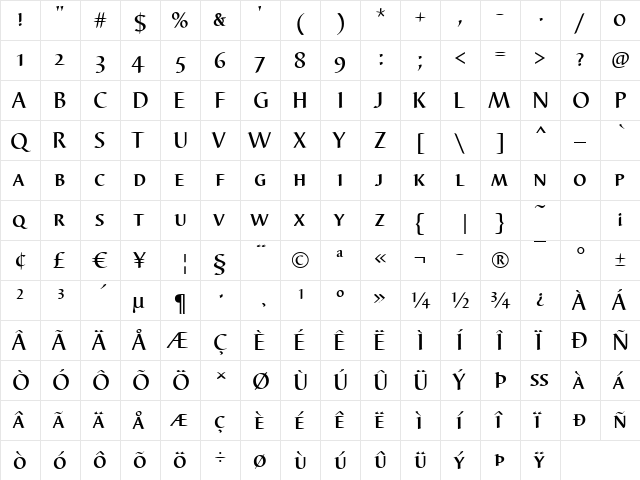
Barbedor-Caps Bold
Design Context for Barbedor-Caps Typeface
Barbedor-Caps offers clean, dependable letterforms without strong stylistic allegiance, making it a practical choice for designers who need flexibility. Its bold stroke weight gives it real presence on the page.